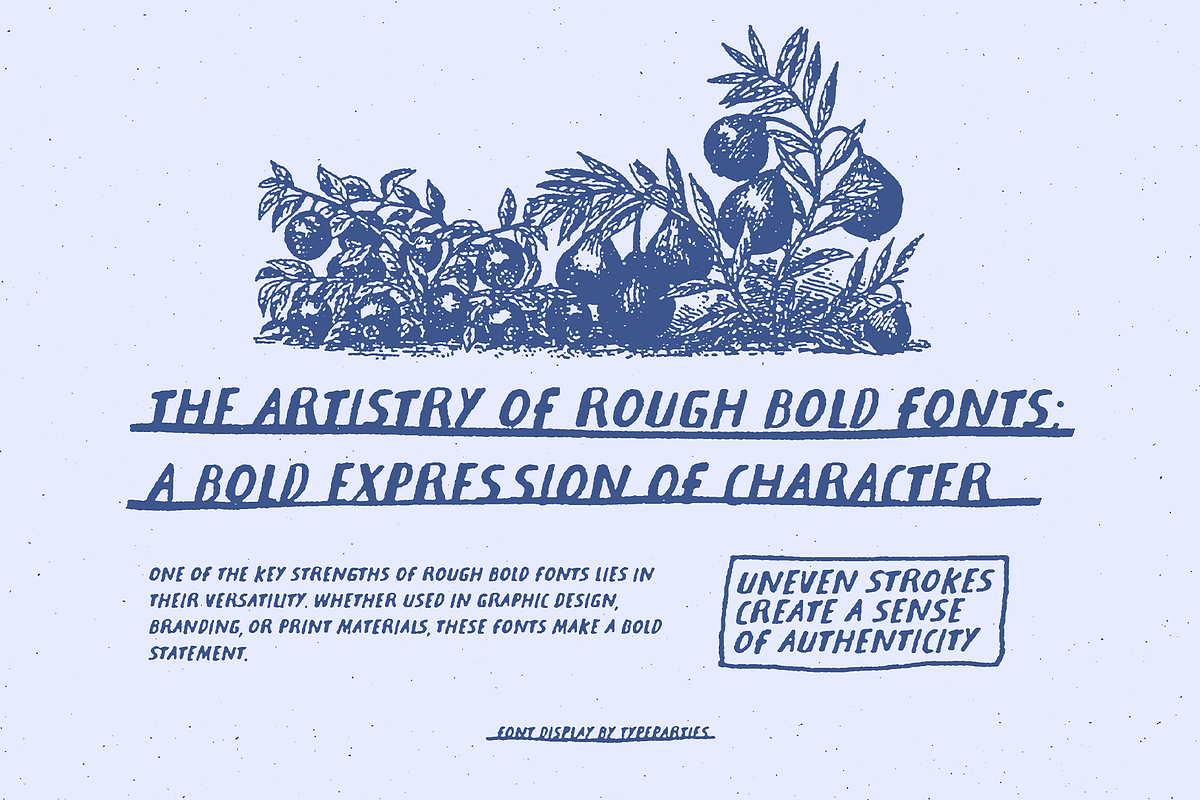
Feztiva - Unique Handwritten Font Free Download
Please note, to use this font for commercial purposes, you must purchase the full version. Feztiva is a unique handwritten font that combines creativity and personality with a distinct, stylish flair. With its natural, organic strokes, this font is perfect for branding, invitations, logos, and creative designs that need a personal touch. Whether you're working on a custom logo, an event invitation, or a casual brand identity, Feztiva brings charm and individuality to your projects. Test it out and enjoy free download access for personal use. Experience the creative beauty of Feztiva - Unique Handwritten Font Free Download before purchasing the commercial license. Add a one-of-a-kind handwritten style to your designs with Feztiva.